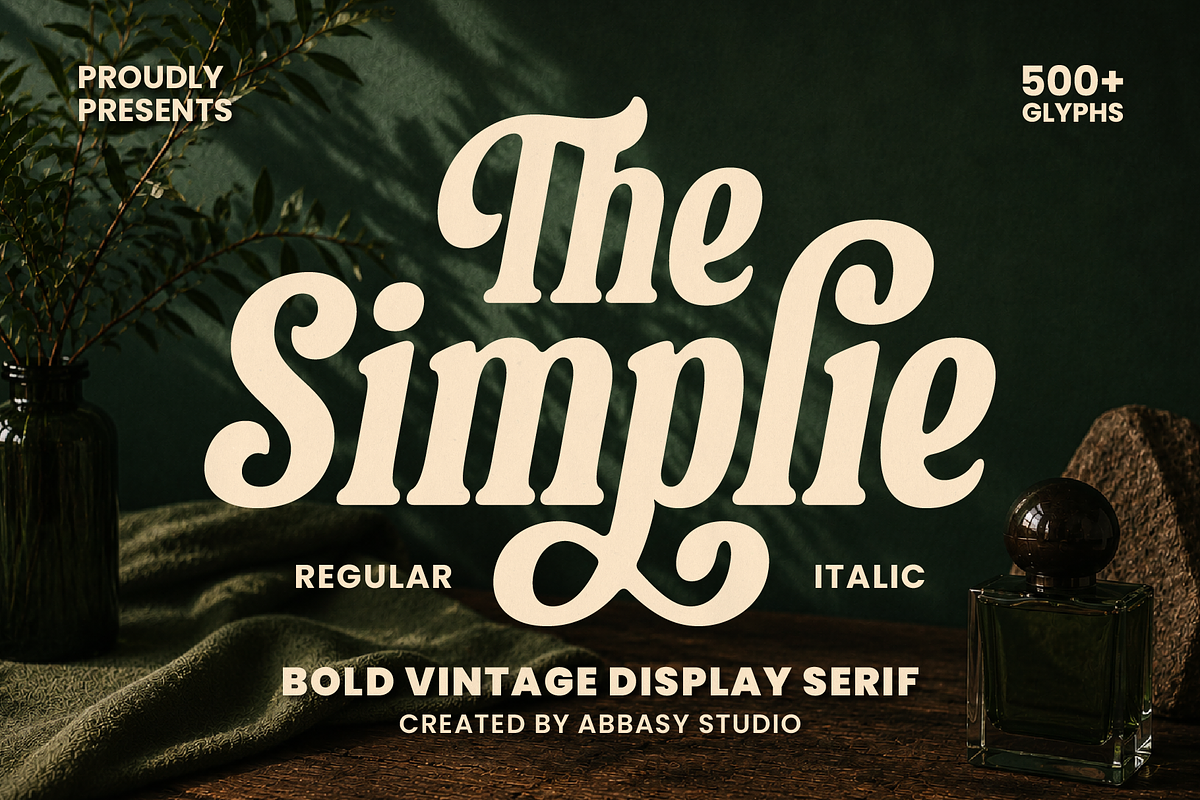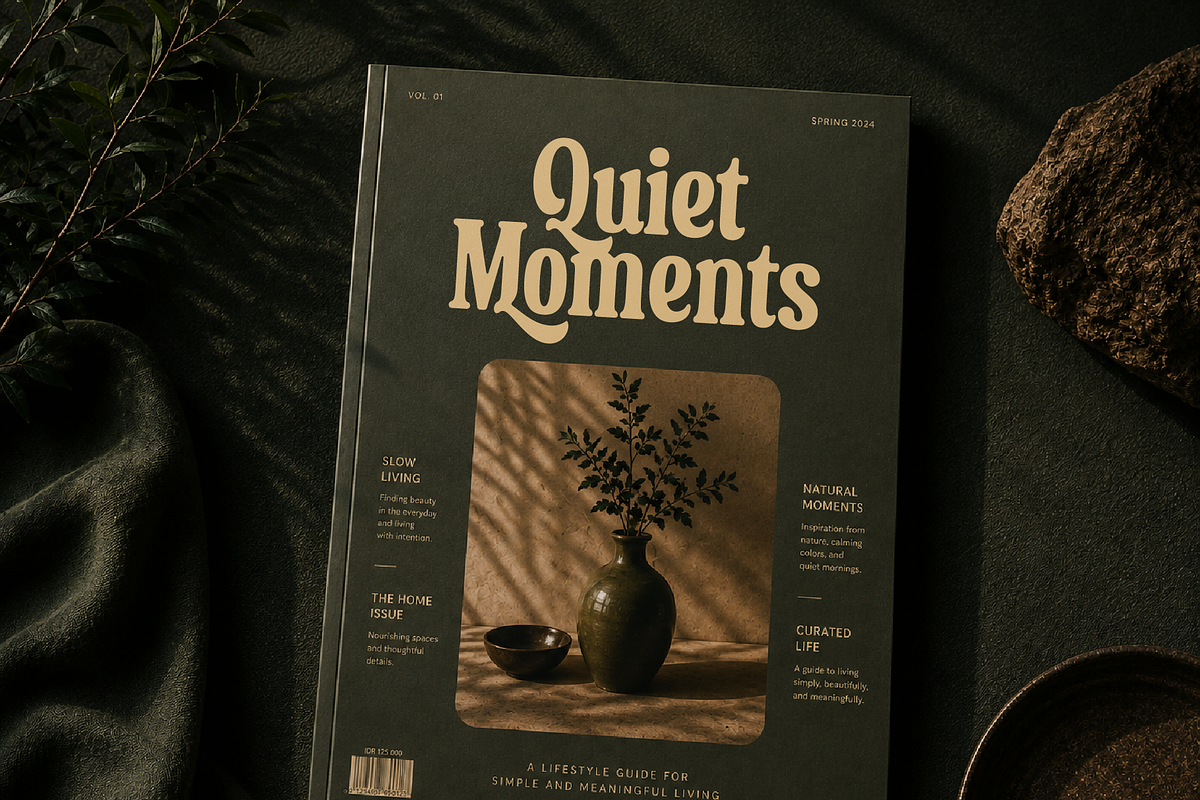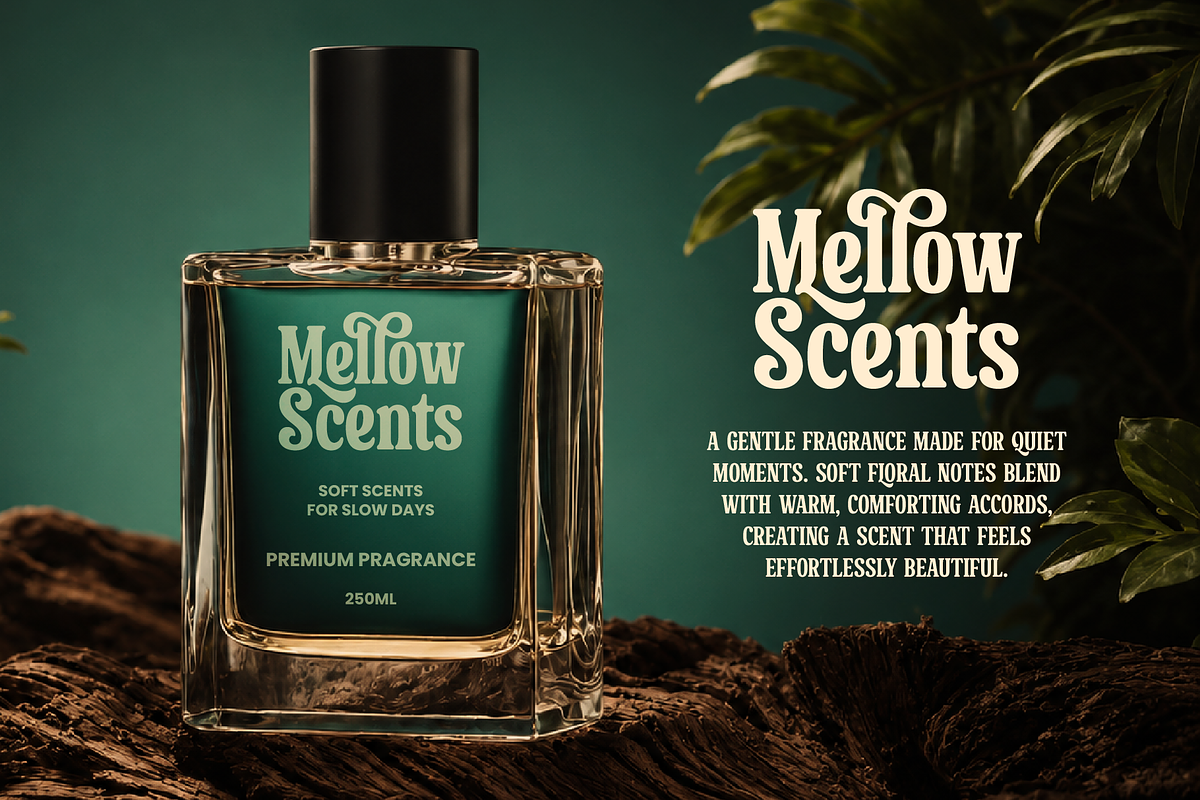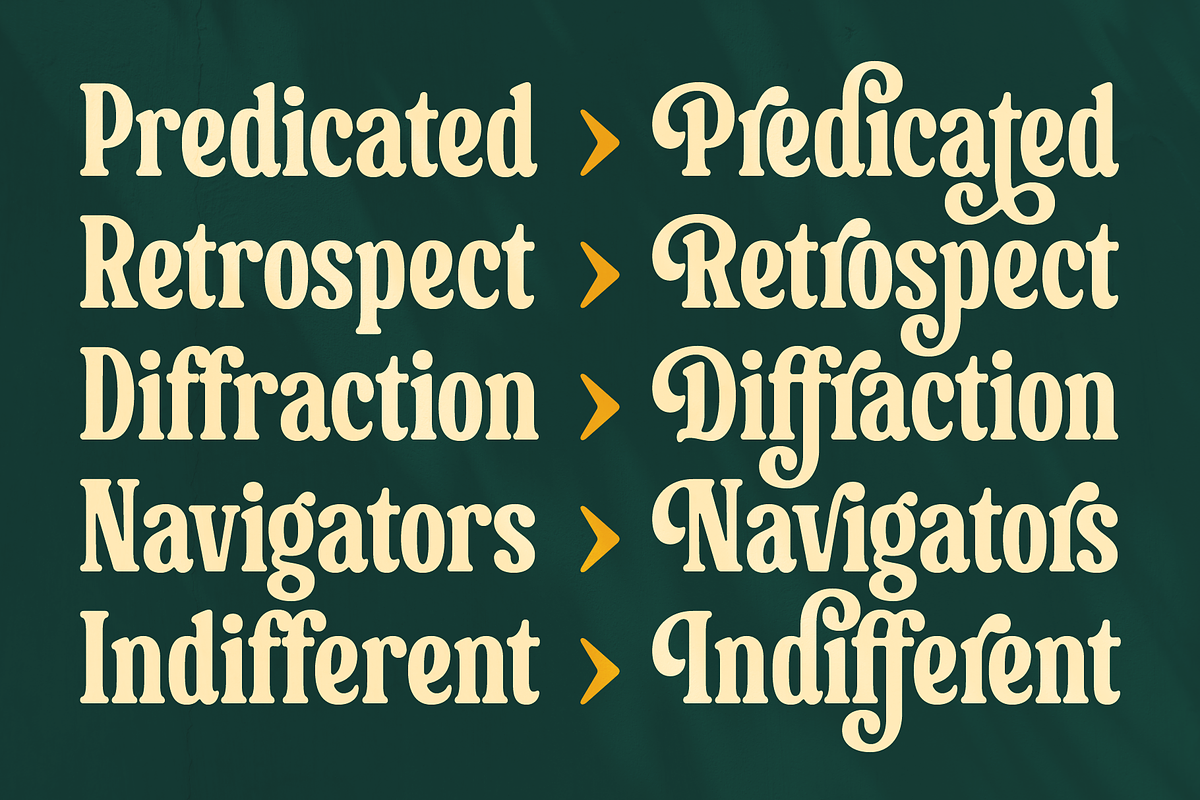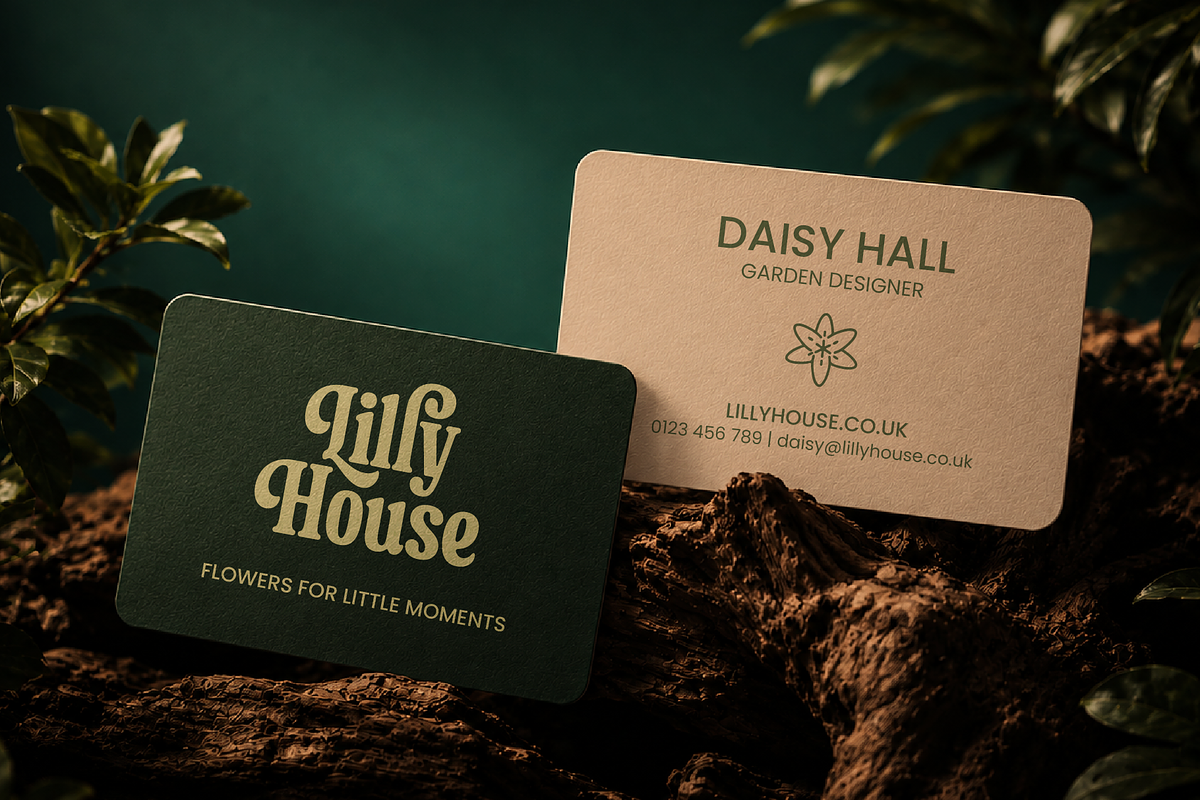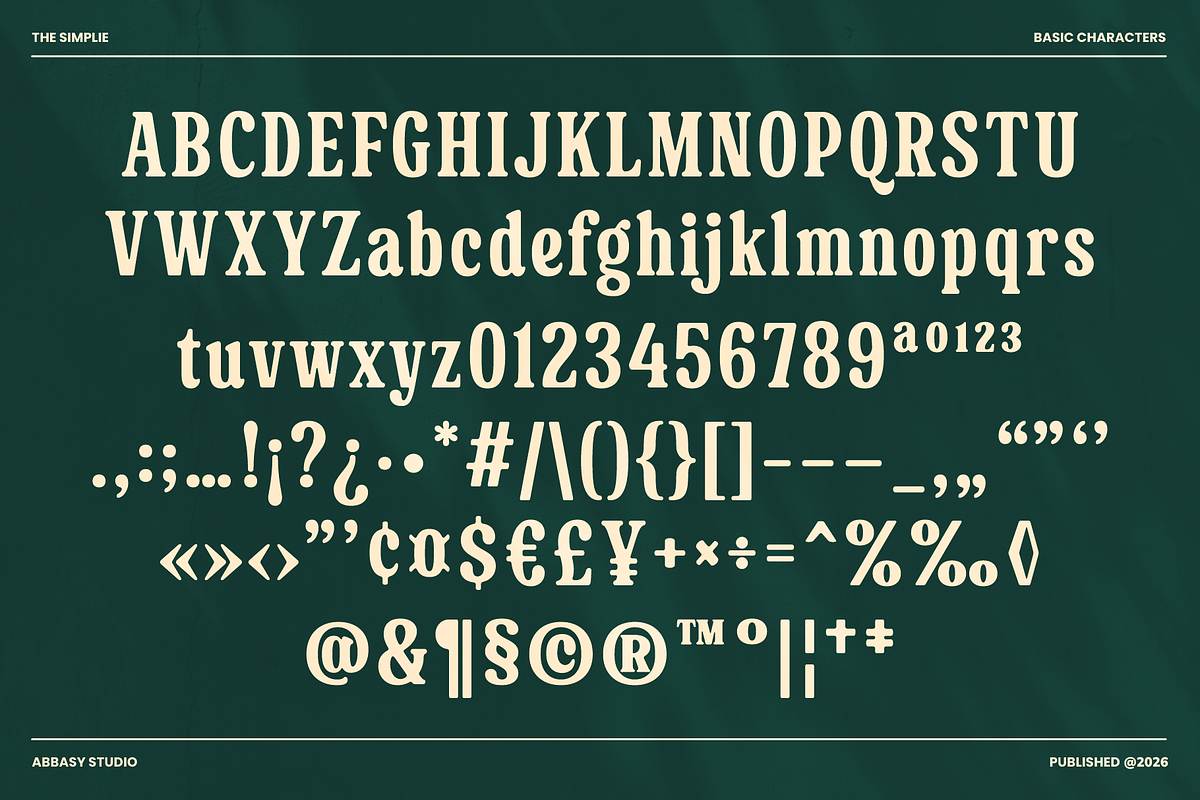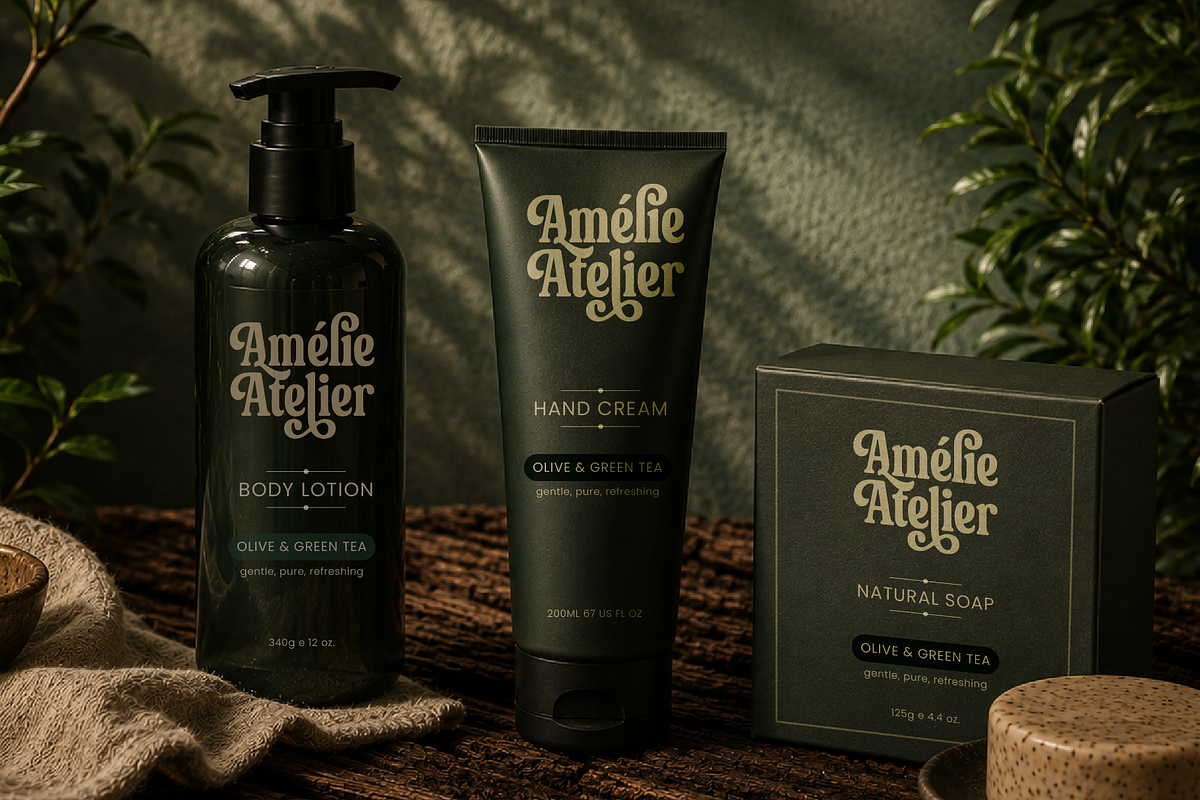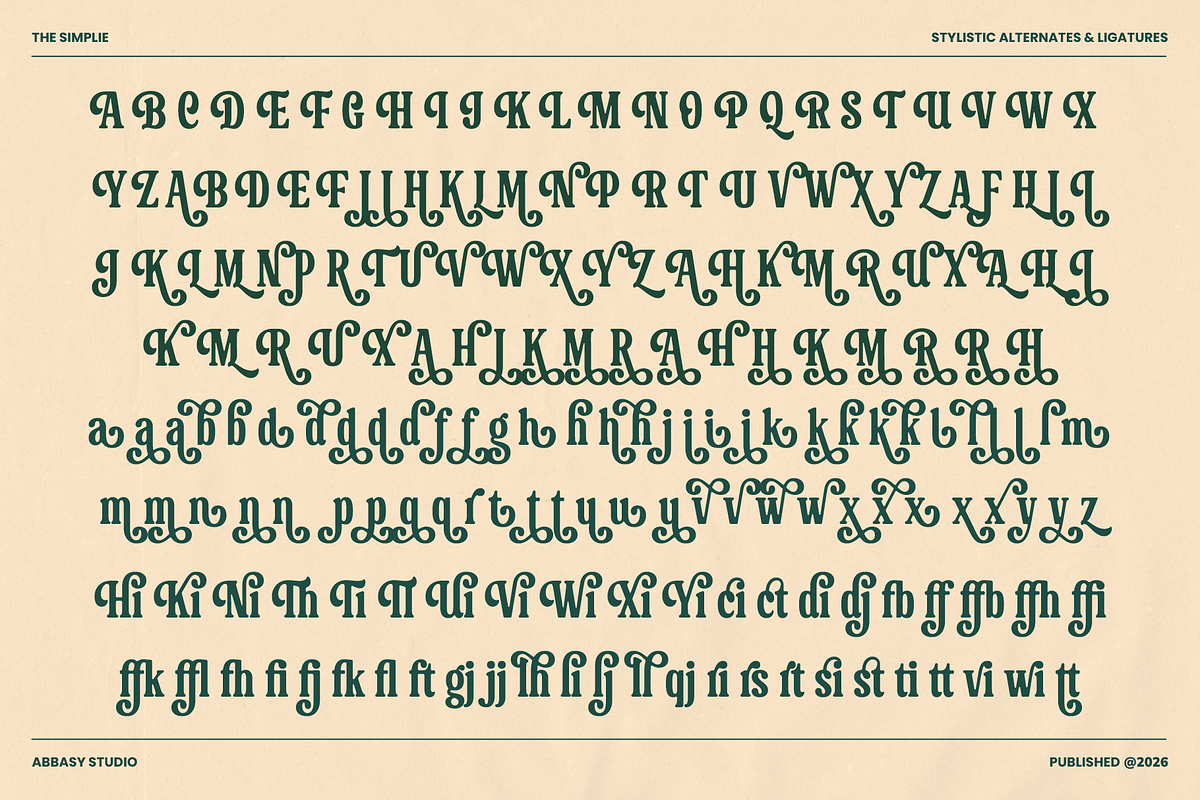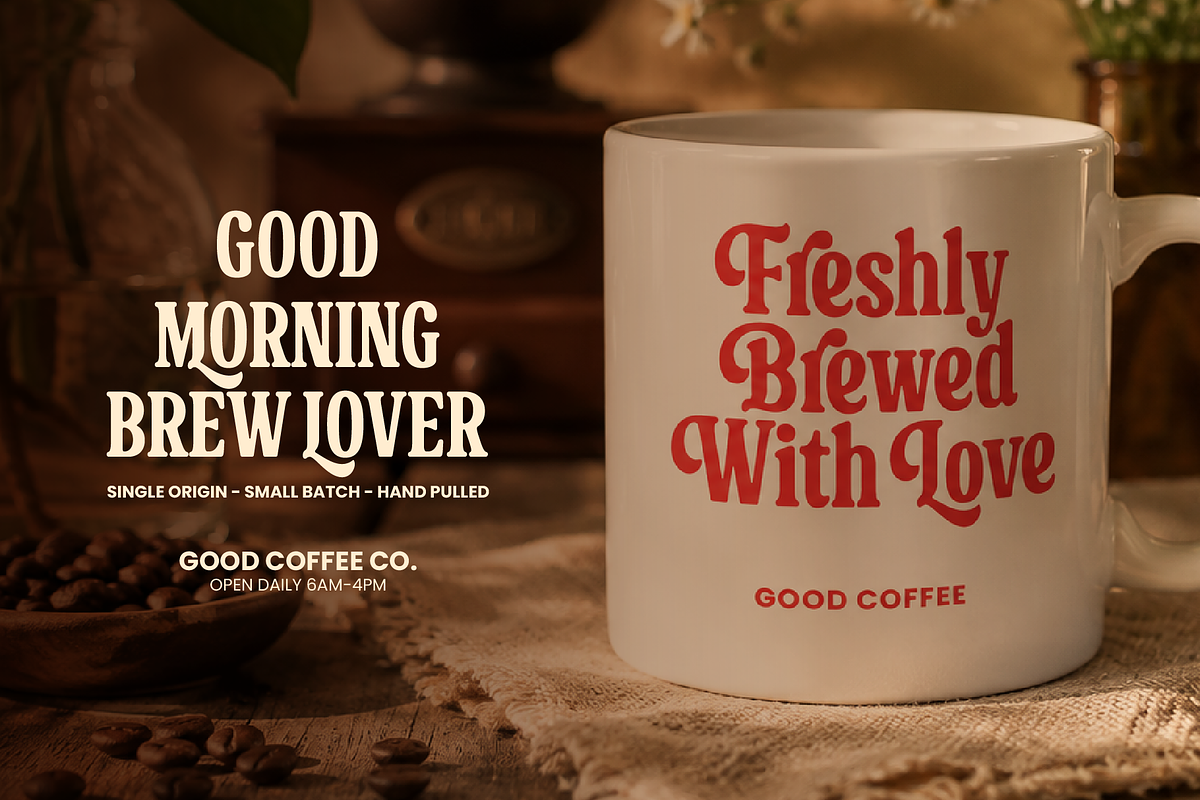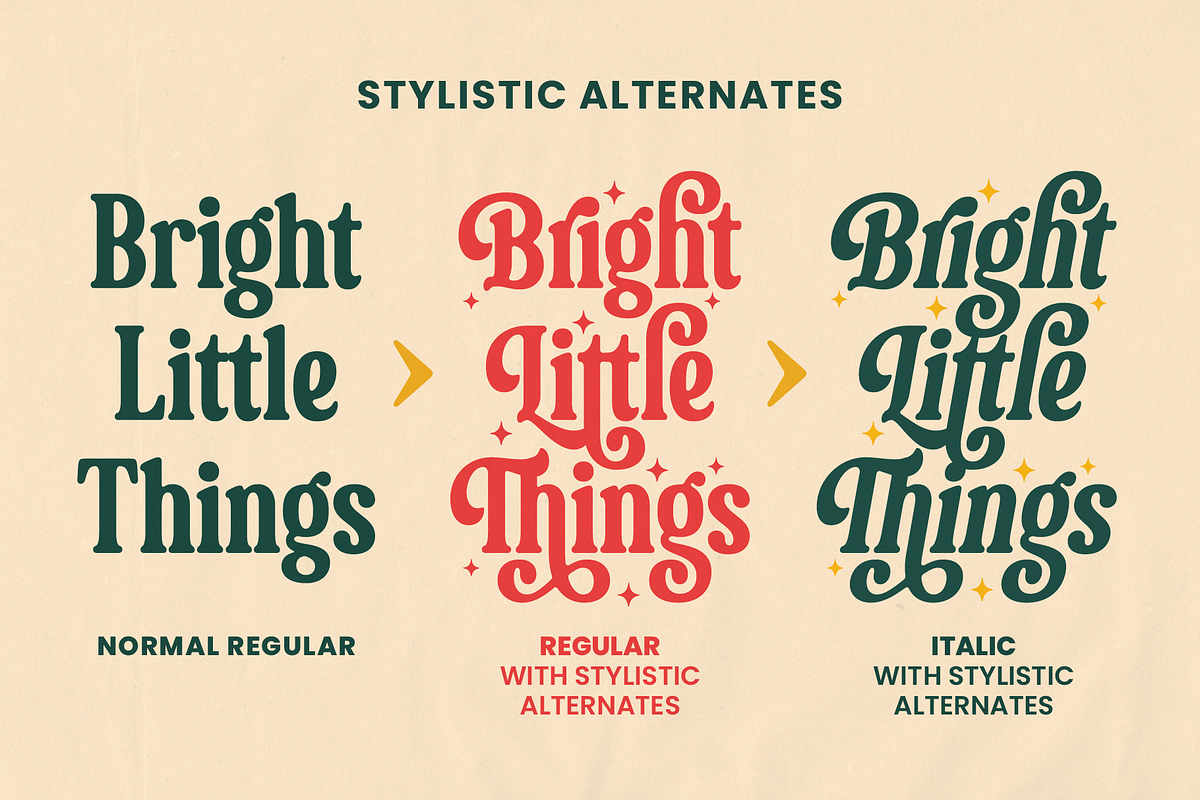
The Simplie
The Simplie — Bold Vintage Display Serif
The Simplie is a versatile bold vintage display serif designed to bring a warm, nostalgic, and expressive character to your typography. Inspired by classic vintage lettering and retro editorial aesthetics, The Simplie combines bold proportions, distinctive serif details, and playful curves to create a typeface that feels both timeless and contemporary.
With its strong personality and highly recognizable letterforms, The Simplie works beautifully for headlines, branding, packaging, posters, editorial layouts, invitations, logos, merchandise, social media graphics, and other display-focused designs.
The Simplie comes in Regular and Italic styles, giving you the flexibility to create everything from bold, confident compositions to more dynamic and elegant typographic treatments.
The typeface also includes 500+ glyphs and supports stylistic alternatives, allowing you to explore different lettering personalities and create more expressive designs.
Bold Vintage Display Serif
Regular & Italic styles
500+ glyphs
Stylistic Alternates & Ligatures
Distinctive vintage-inspired letterforms
Expressive and versatile character
Perfect for display typography and branding
Suitable for logos, packaging, posters, editorial design, invitations, apparel, and social media
Bring a touch of vintage charm, bold personality, and playful elegance to your next creative project with The Simplie.